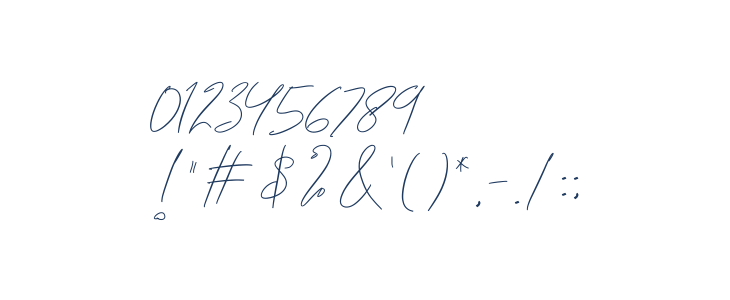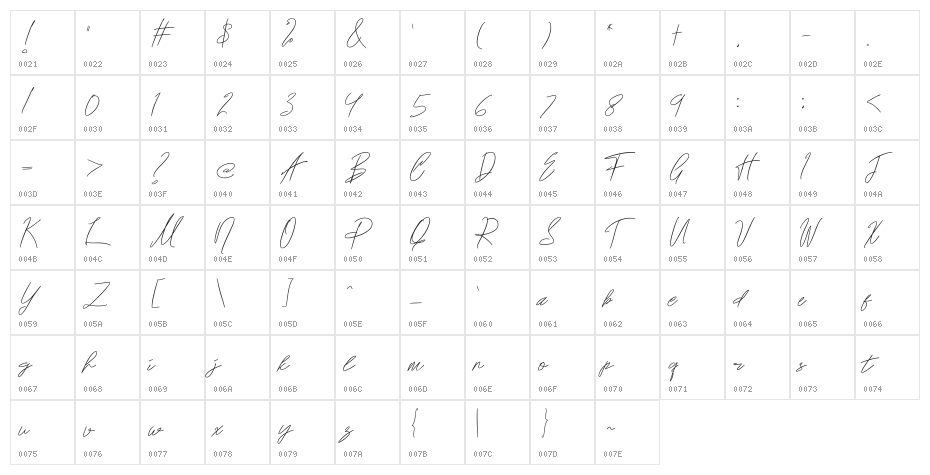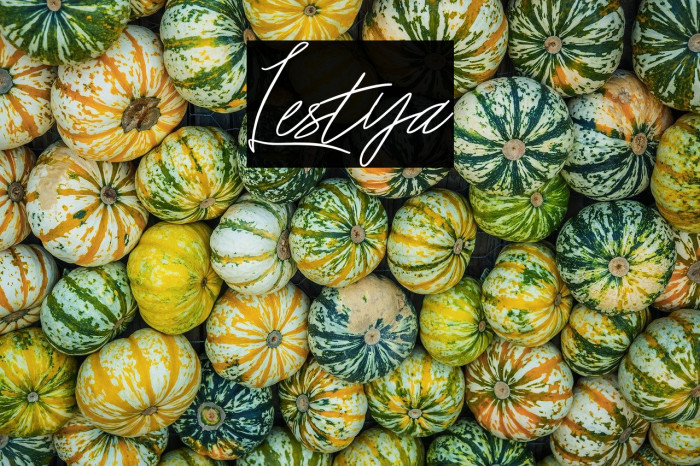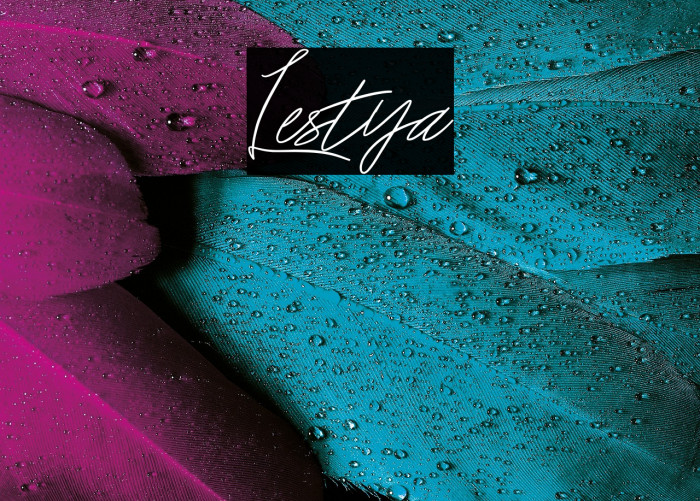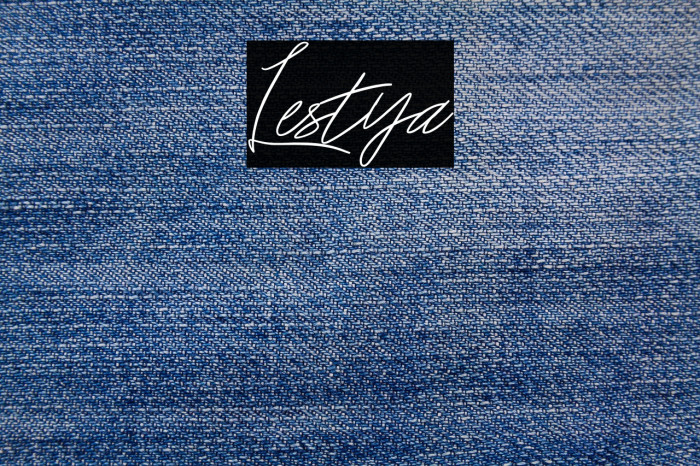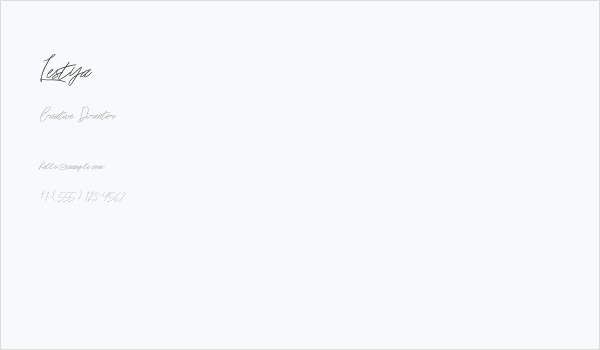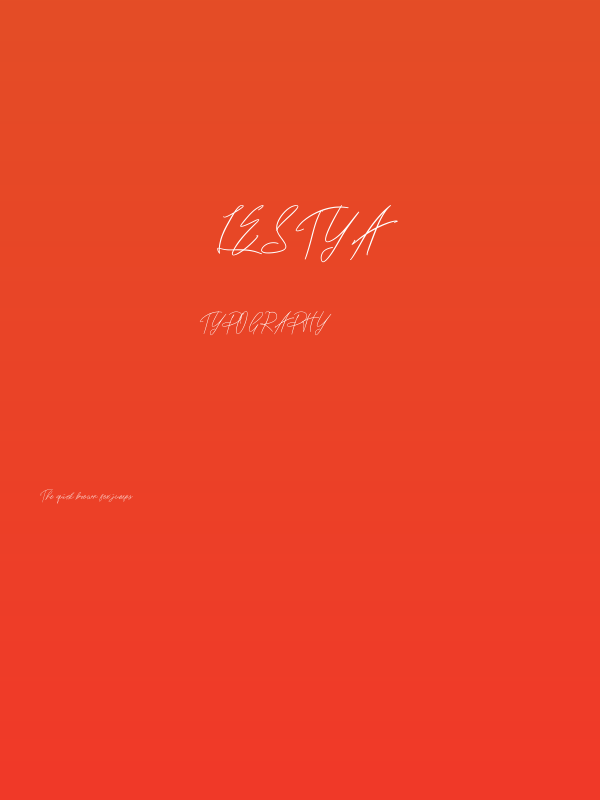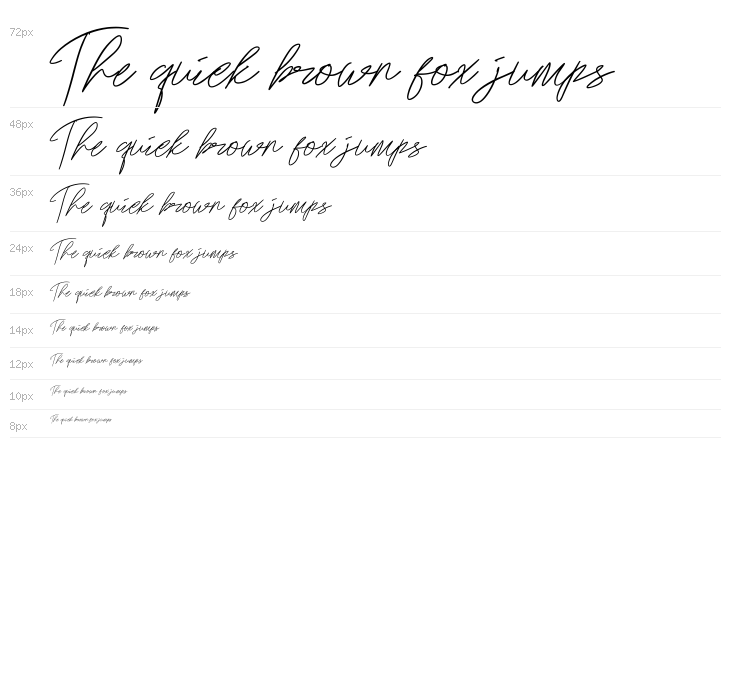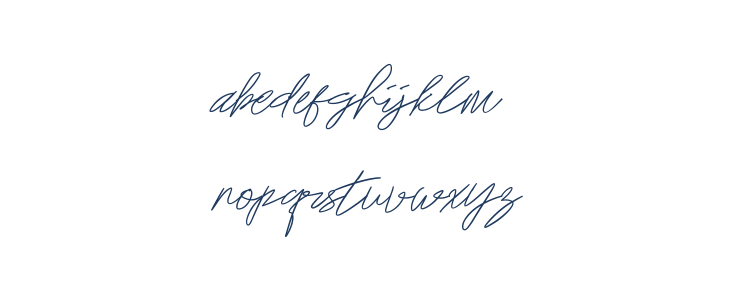
Lestya Font
Lestya Description
This font features an elegant and flowing script style, characterized by its cursive, handwritten appearance. The letters are connected in a fluid manner, giving it a natural and personal touch. The strokes are thin and delicate, with a consistent line weight that adds to its graceful aesthetic. The uppercase letters are slightly more elaborate, with extended loops and swirls, while the lowercase letters maintain a simpler, yet cohesive design. The numerals and special characters follow the same stylistic approach, ensuring uniformity across all elements. This font is ideal for projects that require a touch of sophistication and elegance.
| Proposed Projects | Wedding invitations, personal branding, elegant stationery, and greeting cards. |